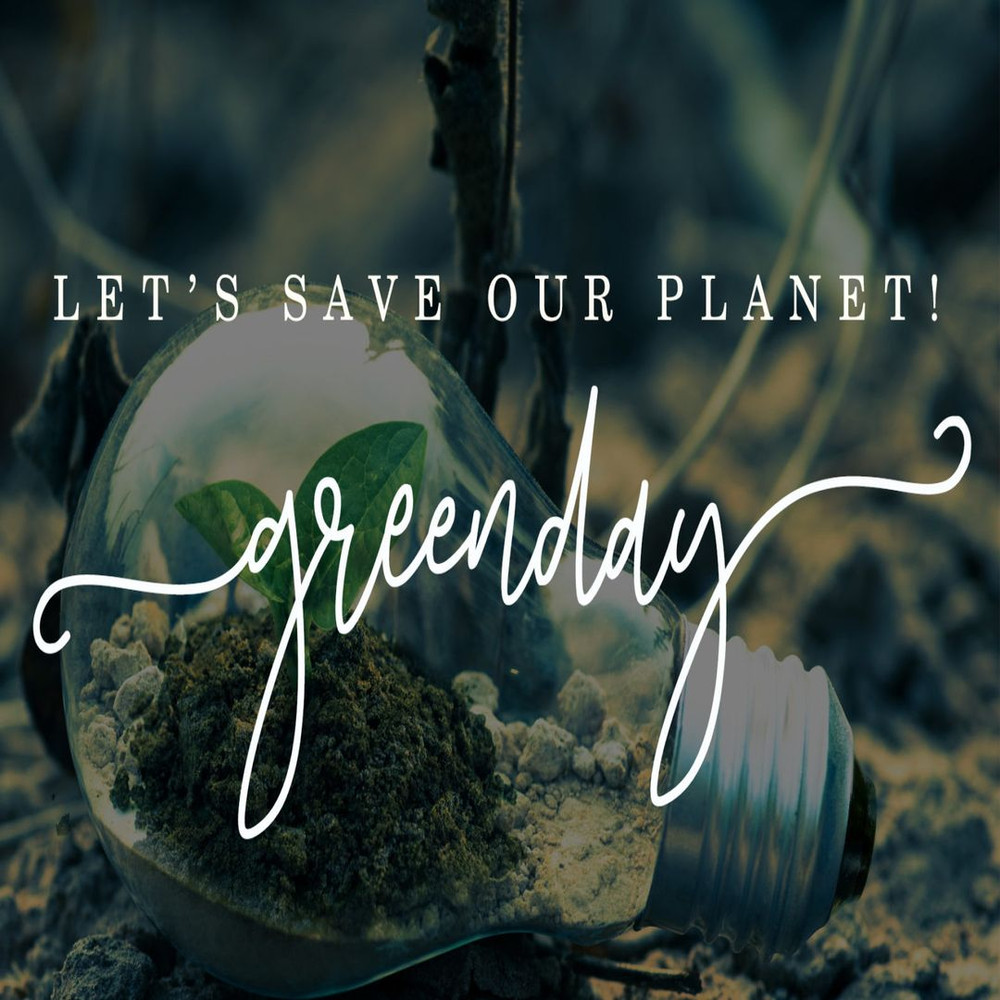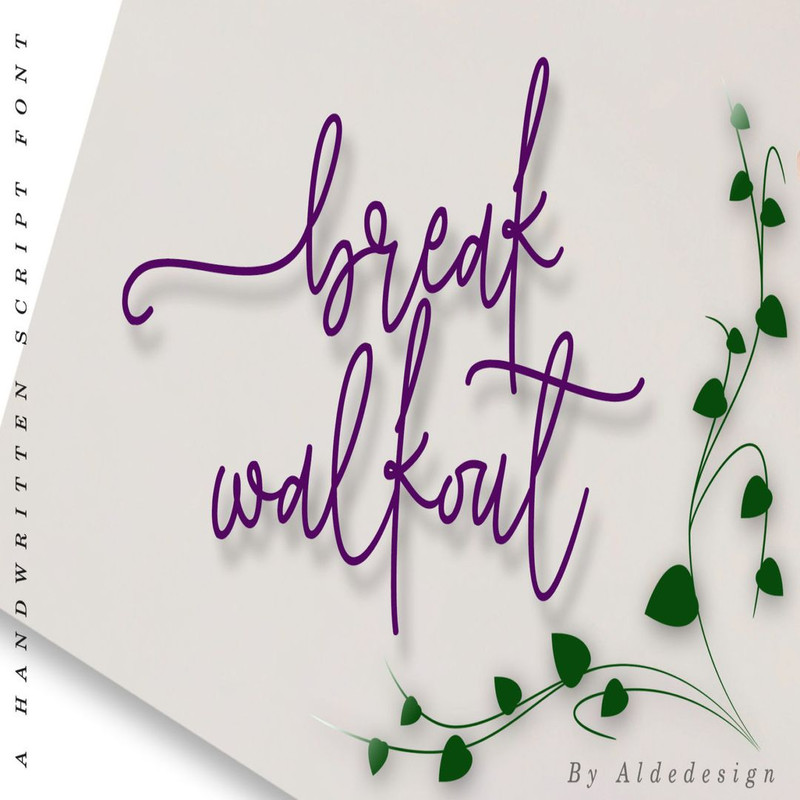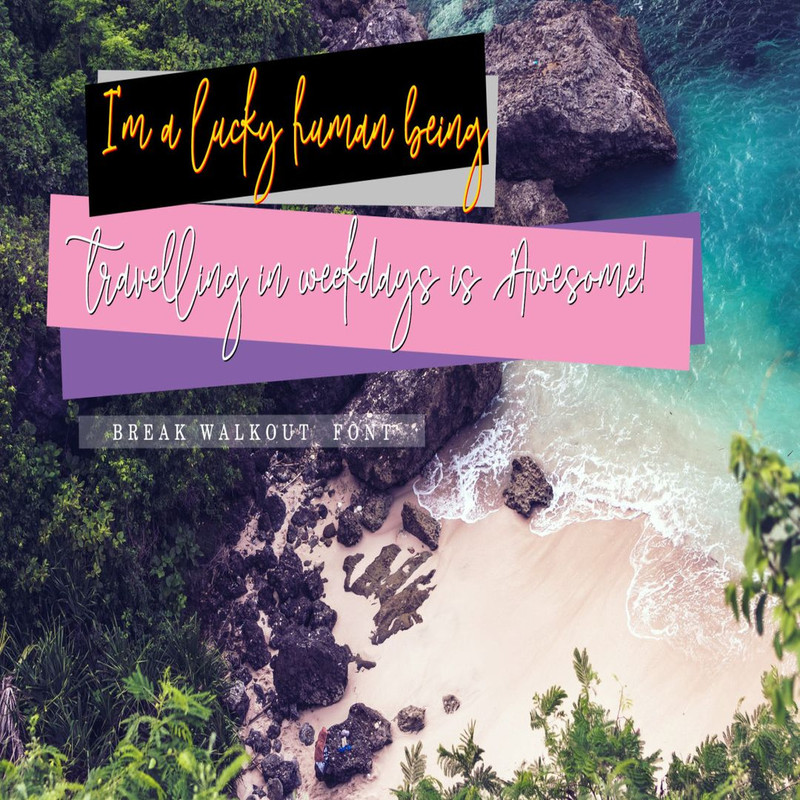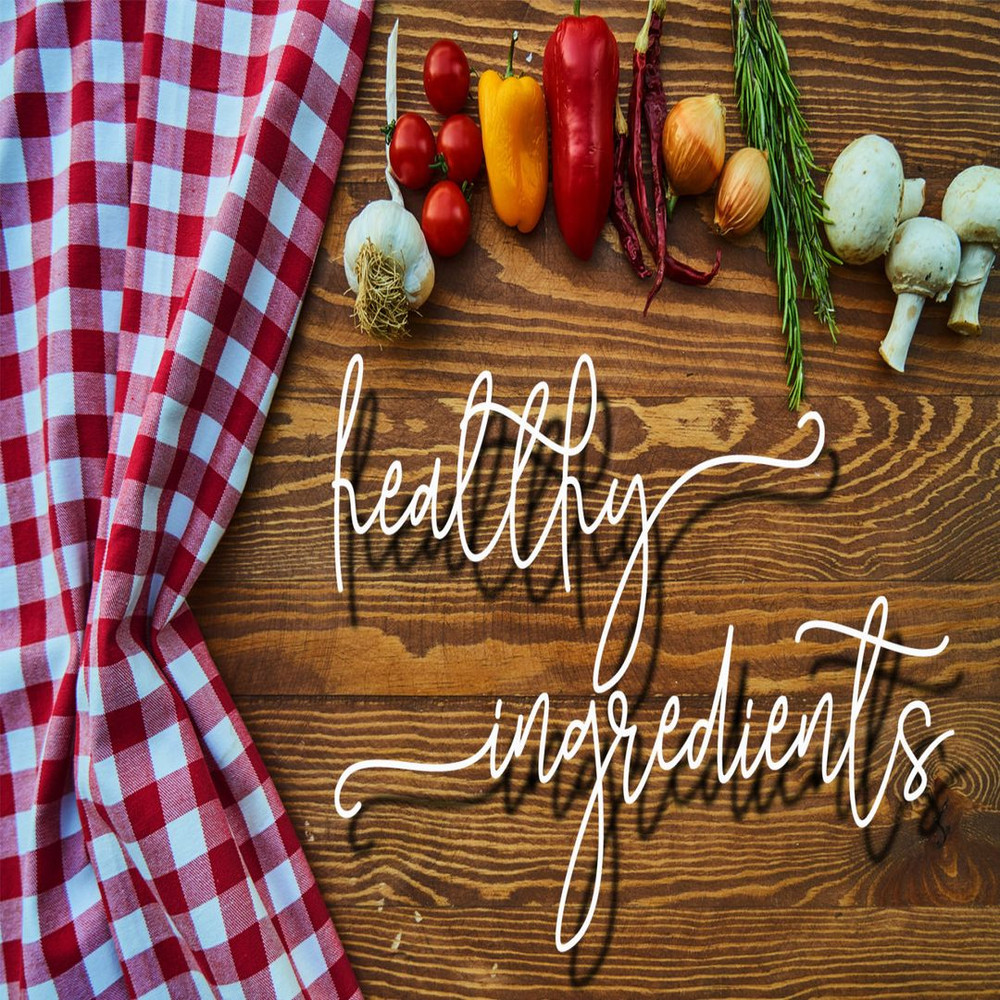
Break Walkout is a great font for any project! This font made with awesome and classy taste comes with a natural touch, so much ligatures & alternates. We keep this font looks classy, readable, elegant, stylish, catchy, and absolutely easy to use.
Break Walkout is a great choice for the watermark on branding, design, wedding, photography, signature, logo design, album cover, business card, quotes, and many other design projects.